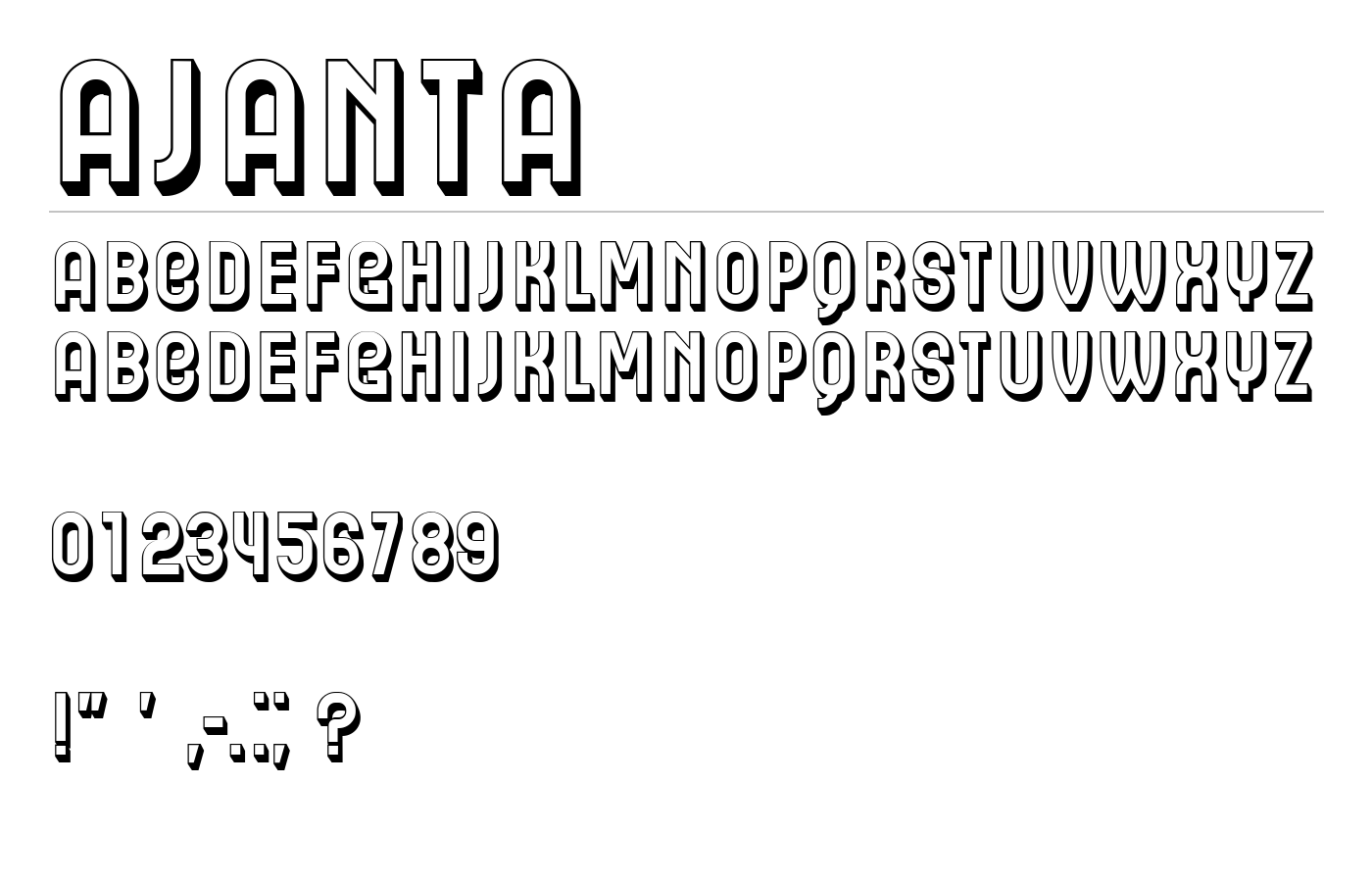
Ajanta is a bold, condensed sans serif display font with a distinctive retro 3D shadow effect that adds depth and character. Its tall, narrow letterforms and uniform stroke weight create a strong, impactful look, perfect for vintage-inspired branding, posters, and headlines that demand attention. This font brings a playful yet confident vibe, ideal for creative and energetic design projects.
Ajanta Font
About Ajanta Font